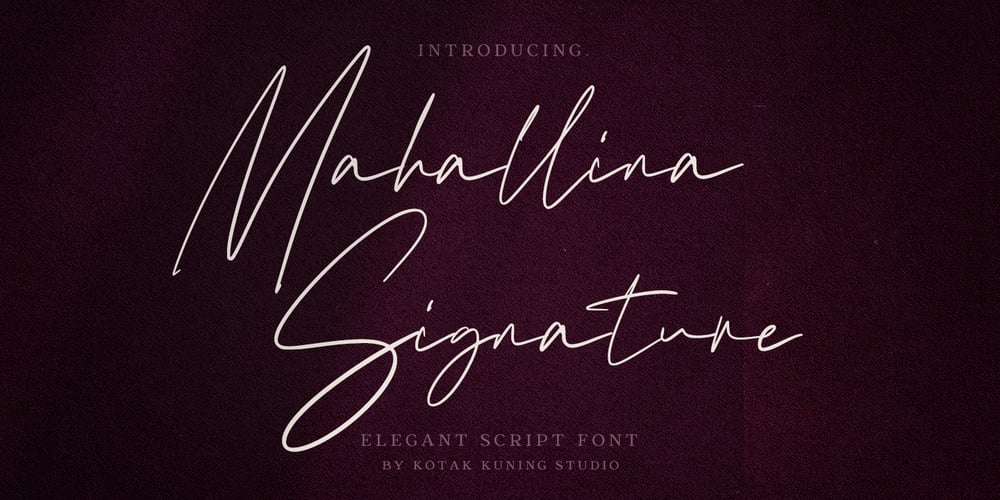
Mahallina Signature Font Family was designed by Arif Dwi and published by Kotak Kuning Studio. Mahallina Signature contains 1 styles and family package options. Mahallina Signature is a modern and elegant signature script font with a natural & stylish flow. Perfect for making elegant stylish statements – or adding a touch of class to your designs.Mahallina Signature is perfect for many different projects such as logos & branding, invitations, stationery, wedding designs, social media posts, advertisements, product packaging, product designs, labels, photography, watermarks, special events, or anything.I highly recommend using a program that supports OpenType features and Glyphs panels such as Adobe Illustrator, Adobe Photoshop CC, Adobe InDesign, or CorelDraw, so you can see and access all Glyph variations.We hope you enjoy the font. Thanks for purchasing and have fun!